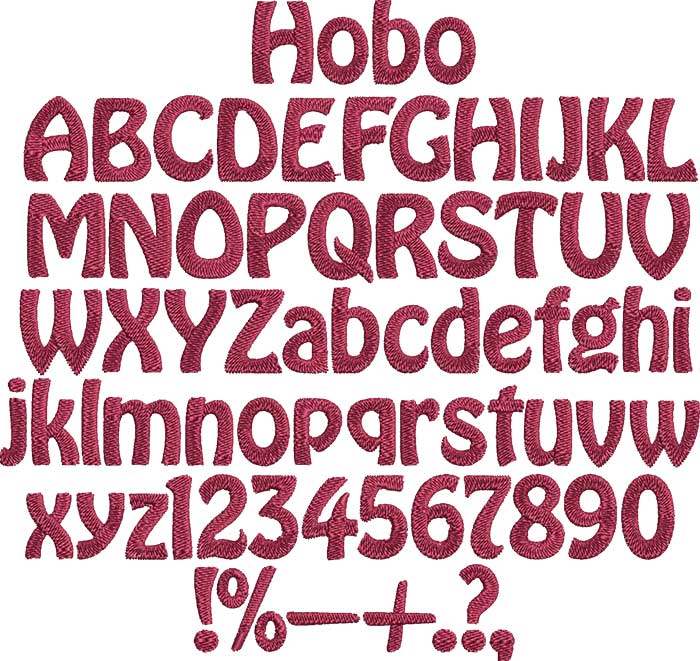
BX Embroidery Font: Hobo
BX Embroidery Font: Hobo Font Bundle (3 sizes) is an art nouveau, funky sans serif machine embroidery font that includes A-Z, a-z, 0-9 and punctuation; 3 sizes.
BX Embroidery Font: Hobo is an art nouveau, funky sans serif machine embroidery font that includes A-Z, a-z, 0-9 and the following punctuation: !%-+,.?/ (70 total characters).
Each character in this alphabet is individually manually digitized; we do not use a TrueType to Stitches conversion utility to create our fonts. Additionally, stitch attributes such as stitch type, density, compensation, and underlay are optimized for each size available. Choose the size closest to what you need. Shrinking the smallest size is not recommended.
Our fonts were manually digitized; we do not use a TrueType to Stitches conversion utility to create our fonts. Plus, stitch attributes such as density, compensation, and underlay are optimized for each size available.